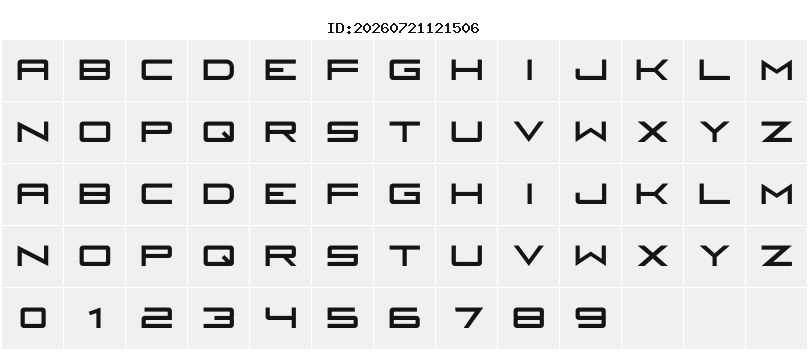
• Font Name: Fireye GF 3 Headline
• Font Style: Condensed
• Full Font Name: Fireye GF 3 Headline Condensed
• Designer: John Litwinowicz
• Manufacturer: Grayfire Fonts
About Fireye GF 3 Headline.ttf
Fireye GF 3 Headline.ttf is a modern, elegant sans-serif font designed for ultimate readability and visual harmony. Perfect for branding, headlines, web design, and print materials.